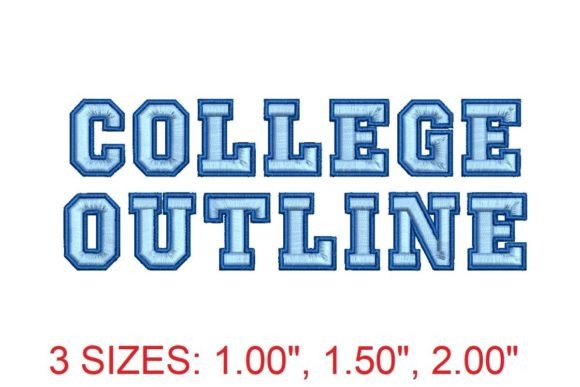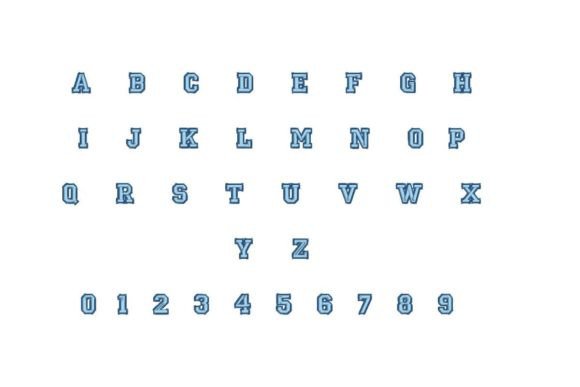
College Outline Embroidery Font
Elevate your embroidery game with the trendy College Outline Embroidery Font. This font seamlessly integrates with the widely used PES file format, ensuring compatibility with popular embroidery machines like Brother/Babylock and more. The College Outline font features stylish and eye-catching lettering with a modern outline design, perfect for adding a collegiate touch to your projects. Whether you’re personalizing sports apparel, creating team merchandise, or adding a cool edge to your designs, this font is perfect for achieving that classic varsity look. Upgrade your embroidery creations with the College Outline Embroidery Font. Order now and score big with your stylish designs!